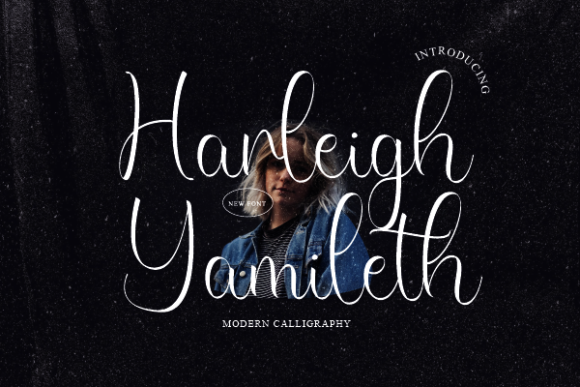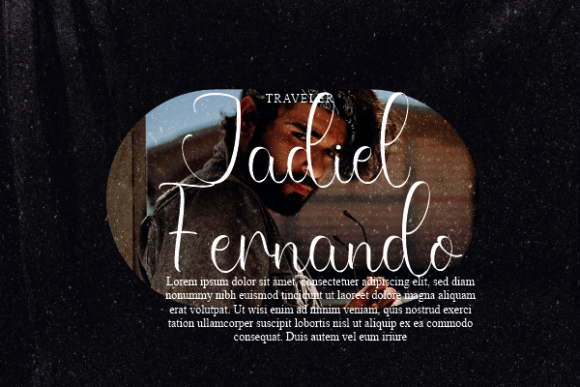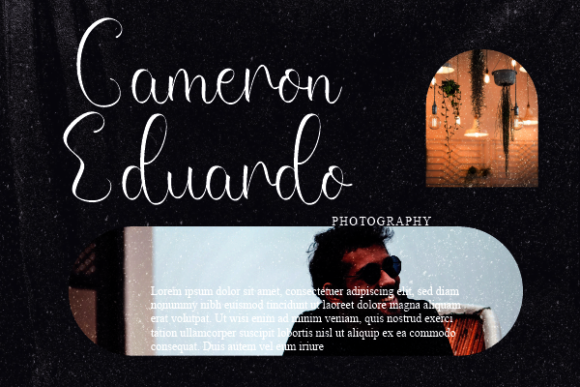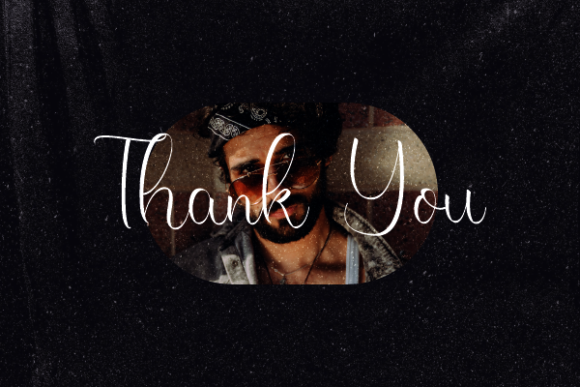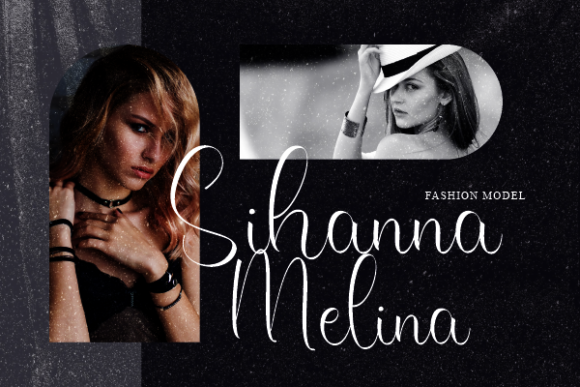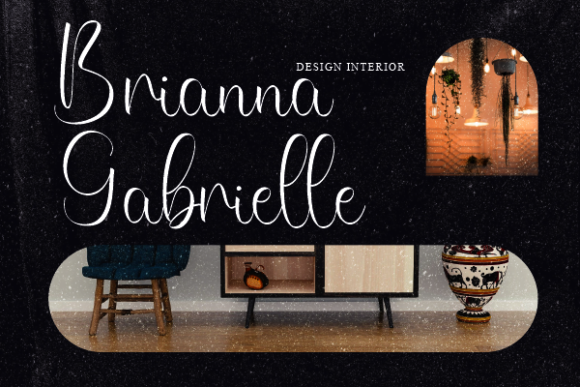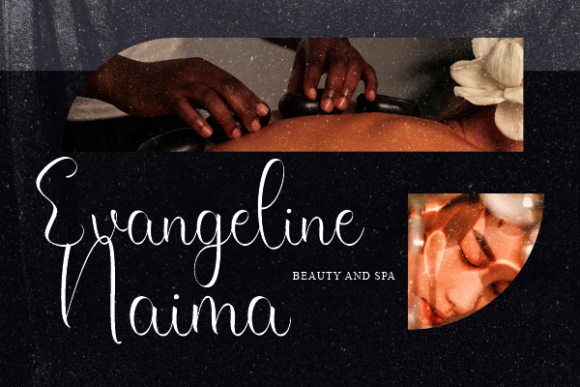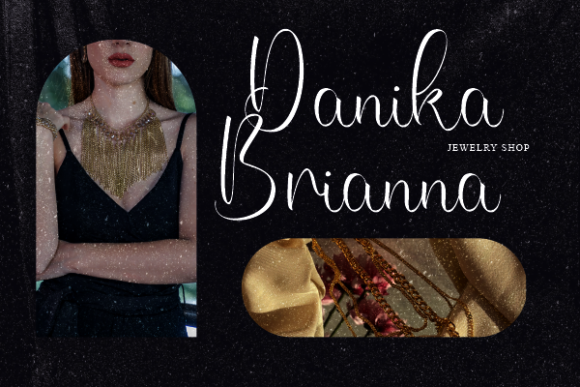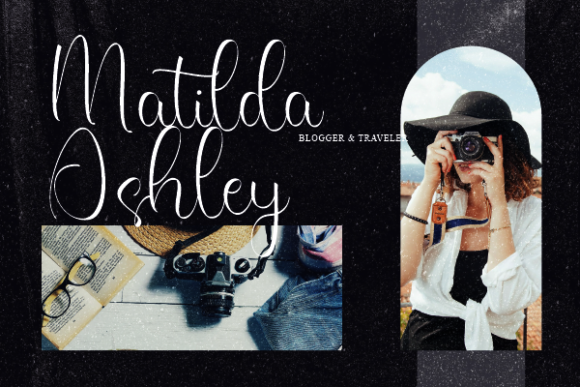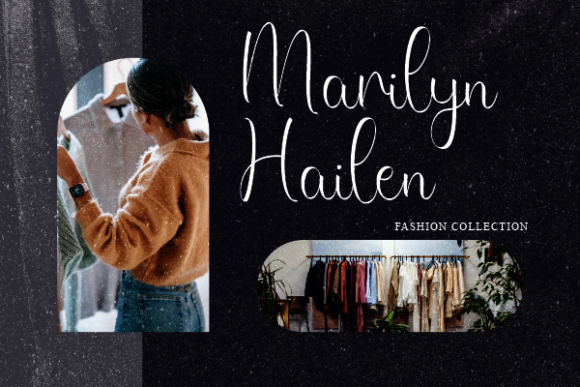
Harleigh Yamileth Font
About Harleigh Yamileth Font
Harleigh Yamileth is a well-balanced and cursive handwritten font that exudes elegance and charm. Its graceful and flowing characters make it a versatile choice for a wide range of design projects, adding a touch of joy and romance to each one.
For branding and logo design, Harleigh Yamileth offers a unique and memorable visual identity. Its cursive style brings a sense of sophistication and creativity, making it suitable for businesses or brands that want to stand out and make a lasting impression.
In wedding invitations and event materials, Harleigh Yamileth adds a romantic and heartfelt touch. Its gentle curves and elegant strokes create an intimate and celebratory atmosphere, setting the tone for a special occasion and evoking emotions of happiness and love.
When used in social media graphics, quotes, and digital art, Harleigh Yamileth brings a sense of warmth and personality. Its cursive script adds a personal and artistic element, making your content more engaging and appealing to your audience.
With its well-balanced design, Harleigh Yamileth is also a great choice for crafting and DIY projects. Whether you’re creating handmade cards, scrapbook layouts, or home decor items, the font adds a handmade and authentic feel that resonates with recipients.
The cursive nature of Harleigh Yamileth allows it to convey a sense of movement and fluidity, making it suitable for projects that aim to capture the essence of joy, romance, and creativity.
Overall, Harleigh Yamileth is a well-balanced and cursive handwritten font that adds a touch of beauty and emotion to a variety of design ideas. Its versatility and elegant charm make it a wonderful choice for projects that seek to create a joyful and romantic ambiance.